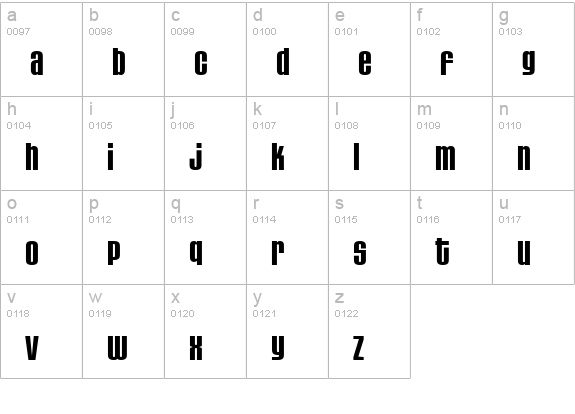
HouseGothic BoldThree is a striking and bold font that exudes a sense of strength and modernity. Its sharp lines and geometric shapes make it perfect for eye-catching headlines and design projects that demand attention. This font is designed to make a statement and leave a lasting impression. The best part? HouseGothic BoldThree is available for free download at FontsMarket.com. Whether you're working on a branding project, poster design, or any other creative endeavor, this font will help you stand out from the crowd. Don't miss out on the opportunity to add this powerful and dynamic font to your collection. Download HouseGothic BoldThree today and unleash your creativity!